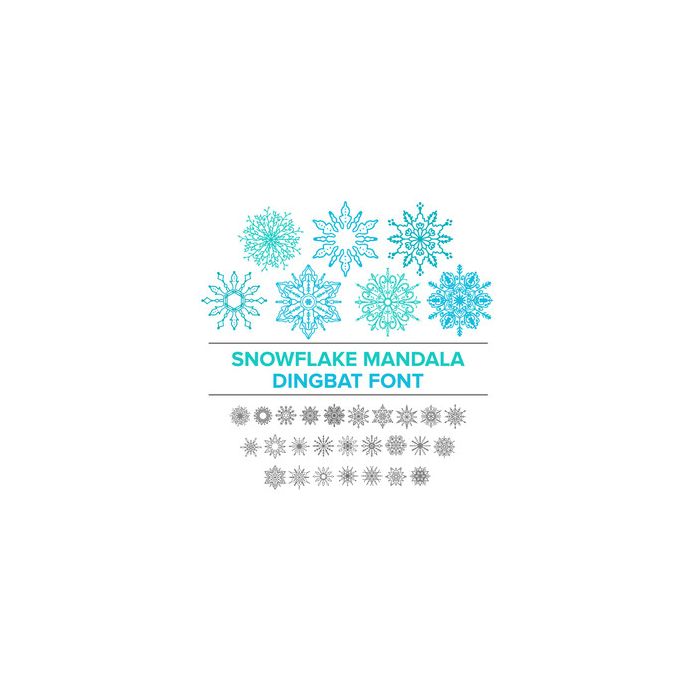
This dingbat font comes in OTF format. There are 26 characters. These shapes is very intricate. Please make sure your blade is sharp and your settings are correct.